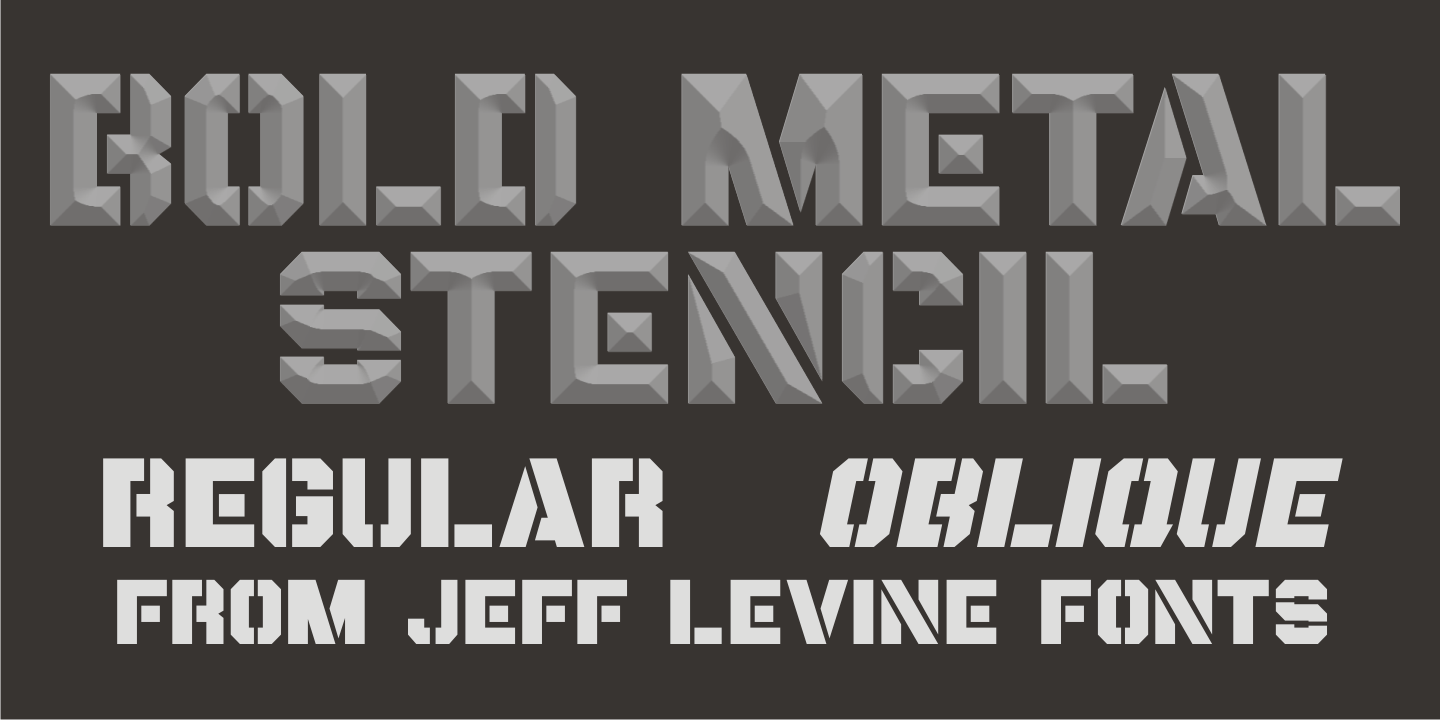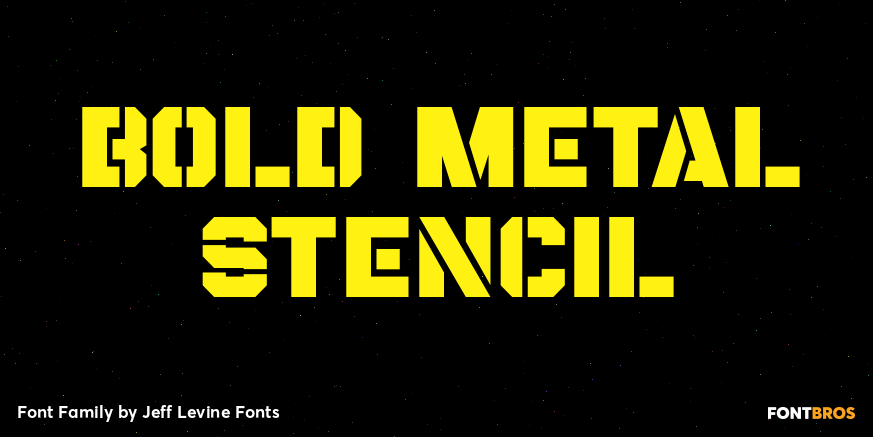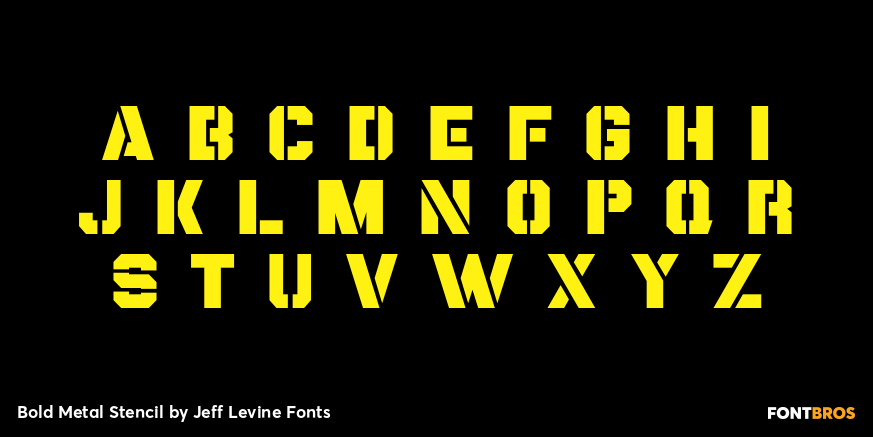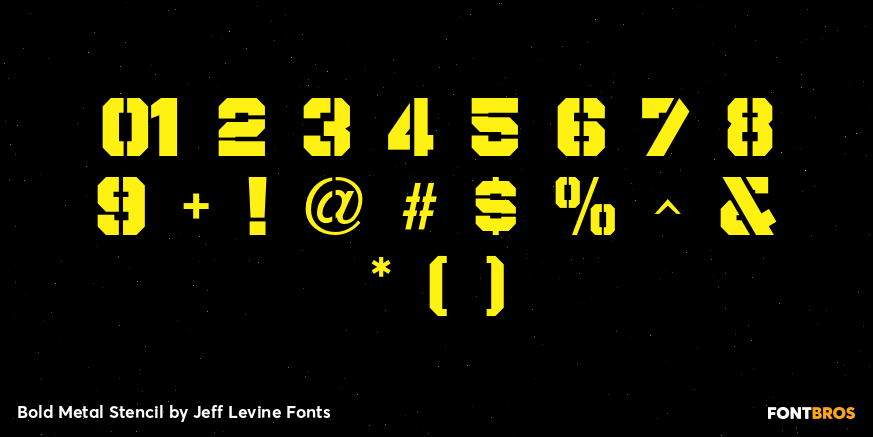
Bold Metal Stencil
An image of a vintage, hand-cut metal stencil with just a set of bold numerals inspired the design of Bold Metal Stencil JNL.
The typeface is available in both regular and oblique versions.